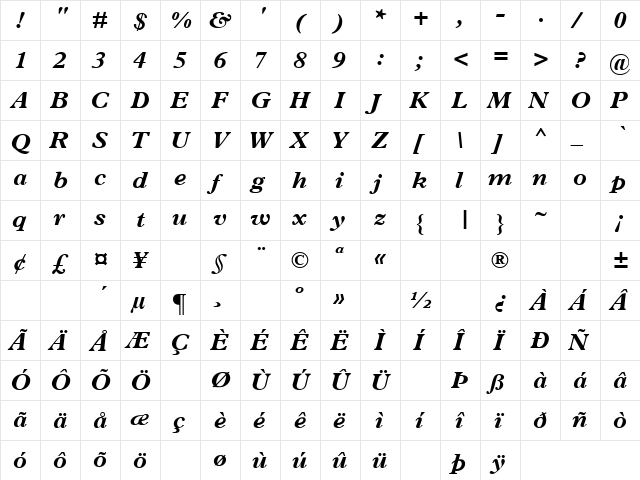
Lick And A Promise 1 Regular
Design Context for Lick And A Promise 1 Typeface
Lick And A Promise 1 offers clean, dependable letterforms without strong stylistic allegiance, making it a practical choice for designers who need flexibility.